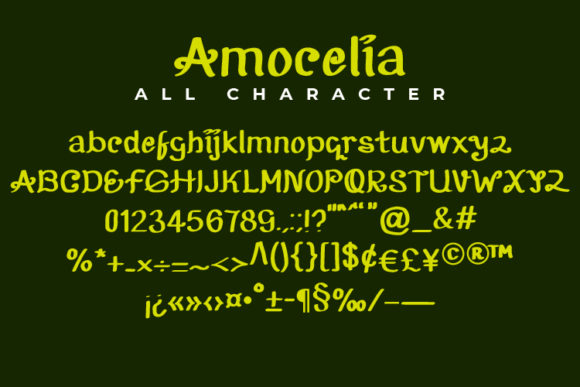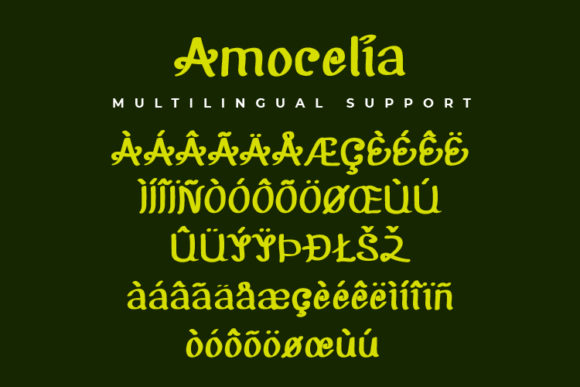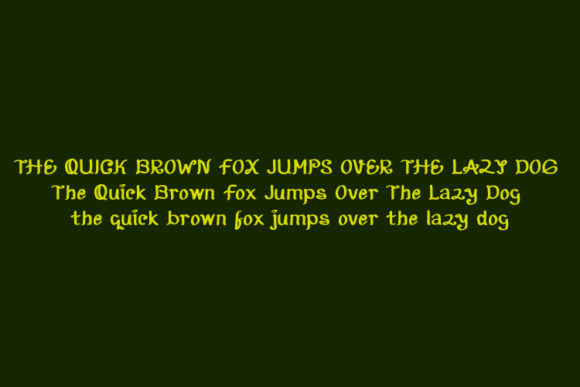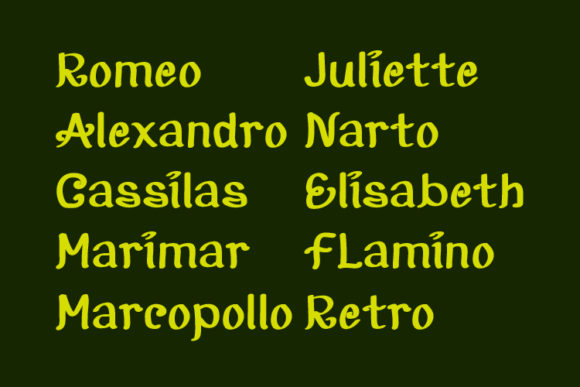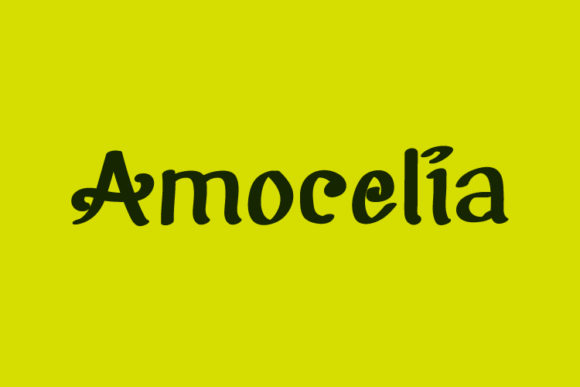
Introducing Amocelia Font: A Simple yet Artistic Handwritten Font for Creative Projects
In the world of typography, fonts play a crucial role in conveying the tone and personality of a brand or design. For designers and crafters, finding the perfect font that combines simplicity, artistry, and versatility can be a daunting task. However, if you’re looking for a font that ticks all these boxes, look no further than Amocelia Font. In this article, we’ll delve into the features and benefits of Amocelia Font, and explore how it can elevate your creative projects.
What is Amocelia Font?
Amocelia Font is a simple handwritten font that boasts a strong sense of art. Its clean and elegant lines make it perfect for a wide range of applications, from logos and posters to flyers and more. One of the standout features of Amocelia Font is its multilingual support, making it an excellent choice for designers who work with clients from diverse linguistic backgrounds.
Key Features of Amocelia Font
- Simple yet Artistic: Amocelia Font strikes the perfect balance between simplicity and artistry, making it suitable for a wide range of creative projects.
- Multilingual Support: With support for multilingual characters, Amocelia Font is an excellent choice for designers who work with clients from diverse linguistic backgrounds.
- Versatile: Amocelia Font can be used for a variety of applications, including logos, posters, flyers, and more.
- Handwritten: The font’s handwritten style gives it a personal and unique touch, making it perfect for designs that require a human touch.
Benefits of Using Amocelia Font
So, why should you choose Amocelia Font for your creative projects? Here are just a few benefits of using this versatile font:
- Elegance: Amocelia Font adds a touch of elegance to any design, making it perfect for projects that require a sophisticated look.
- Readability: The font’s clean lines and simple design make it easy to read, even at small sizes.
- Flexibility: Amocelia Font can be used for a wide range of applications, from digital designs to print materials.
- Uniqueness: The font’s handwritten style gives it a unique and personal touch, making it perfect for designs that require a human touch.
How to Use Amocelia Font in Your Creative Projects
Amocelia Font is incredibly versatile and can be used in a wide range of creative projects. Here are just a few ideas to get you started:
- Logo Design: Use Amocelia Font to create a simple yet elegant logo for your brand or business.
- Poster Design: Add a touch of sophistication to your posters with Amocelia Font.
- Flyer Design: Use Amocelia Font to create eye-catching flyers that grab attention.
- Digital Design: Amocelia Font is perfect for digital designs, including social media graphics, email headers, and more.
In conclusion, Amocelia Font is a simple yet artistic handwritten font that is perfect for creative projects. With its multilingual support, versatility, and elegance, it’s an excellent choice for designers and crafters who want to add a touch of sophistication to their designs. Whether you’re creating a logo, poster, flyer, or digital design, Amocelia Font is sure to impress. So why wait? Download Amocelia Font today and take your creative projects to the next level!